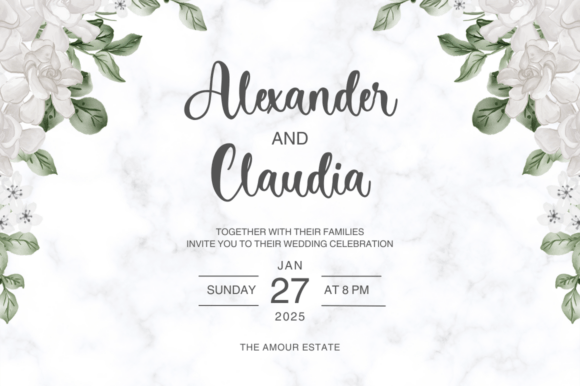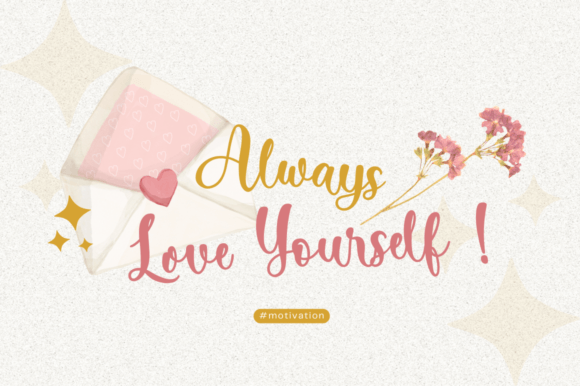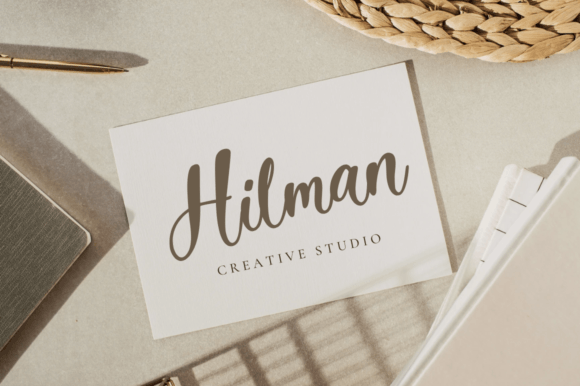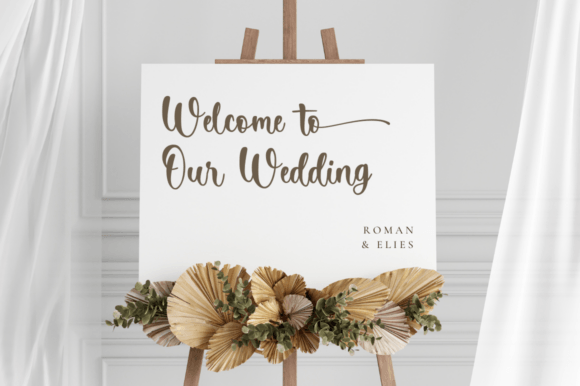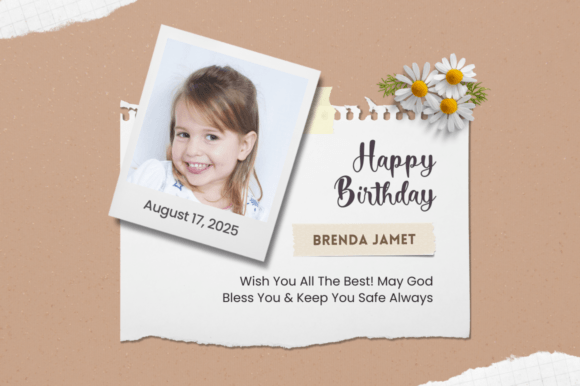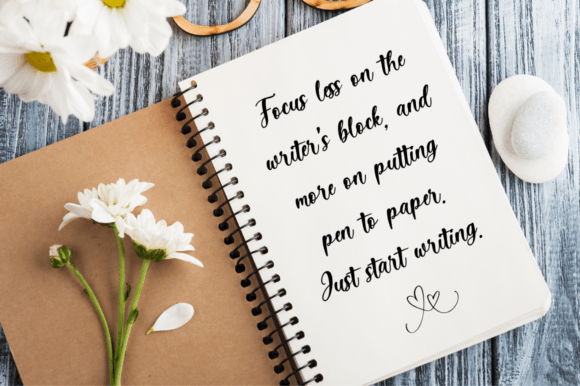
Introducing Abitha Font: The Epitome of Elegance and Charm
In the world of typography, few fonts manage to capture the essence of romance and sophistication as effortlessly as Abitha Font. This lovely calligraphy font is a masterpiece of design, boasting smooth, flowing curves and delicate strokes that exude elegance and charm. Whether you’re a designer looking to create stunning visual content or a crafter seeking the perfect font for your handmade projects, Abitha is an excellent choice.
The Characteristics of Abitha Font
Abitha Font is distinguished by its unique blend of classic calligraphy and modern sensibilities. Its smooth, flowing curves give it a fluid and dynamic appearance, while its delicate strokes add a touch of refinement and poise. Each letterform is meticulously crafted to convey a sense of love and care, making Abitha the perfect font for projects that require a personal touch.
Ideal Uses for Abitha Font
Abitha Font’s versatility makes it suitable for a wide range of applications. Here are some of the ideal uses for this beautiful font:
- Wedding Invitations: Add a touch of romance and sophistication to your wedding invitations with Abitha Font. Its elegant letterforms and flowing curves create a sense of luxury and refinement, perfect for announcing your special day.
- Greeting Cards: Whether you’re creating birthday cards, anniversary cards, or get-well cards, Abitha Font is an excellent choice. Its heartfelt and personal feel makes every card feel special and meaningful.
- Branding and Logos: Abitha Font is also suitable for branding and logo design. Its unique and memorable letterforms can help your business stand out and establish a strong visual identity.
- Stationery and Packaging: Add a touch of elegance to your stationery, packaging, and product labels with Abitha Font. Its sophisticated appearance makes it perfect for businesses that want to convey a sense of luxury and refinement.
Why Choose Abitha Font?
With so many fonts available, why choose Abitha Font for your projects? Here are a few compelling reasons:
- Timeless Appeal: Abitha Font has a timeless appeal that never goes out of style. Its classic design ensures that your projects will remain elegant and sophisticated for years to come.
- Emotional Connection: Abitha Font’s flowing curves and delicate strokes create an emotional connection with your audience. Its heartfelt and personal feel makes every word feel special and full of love.
- Versatility: Abitha Font is highly versatile and can be used for a wide range of applications. Its adaptability makes it an excellent addition to any designer’s or crafter’s toolkit.
Tips for Using Abitha Font
To get the most out of Abitha Font, here are a few tips to keep in mind:
- Pair with Simple Backgrounds: Abitha Font’s elegant letterforms can get lost on busy or complex backgrounds. Pair it with simple backgrounds to make it stand out.
- Experiment with Colors: Abitha Font looks stunning in a variety of colors. Experiment with different hues and shades to find the perfect combination for your project.
- Pay Attention to Spacing: Abitha Font’s flowing curves and delicate strokes require careful attention to spacing. Make sure to leave enough space between letters and words to maintain its elegance and charm.
Abitha Font is a beautiful calligraphy font that radiates elegance and charm. Its smooth, flowing curves and delicate strokes make it perfect for creating romantic and heartfelt designs. With its timeless appeal, emotional connection, and versatility, Abitha Font is an excellent choice for designers and crafters looking to add a touch of sophistication and beauty to their projects. Whether you’re creating wedding invitations, greeting cards, branding, logos, or any other project that requires a personal touch, Abitha Font is sure to impress.